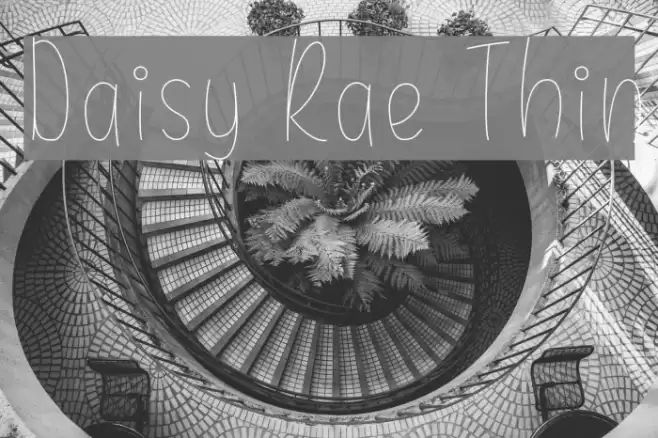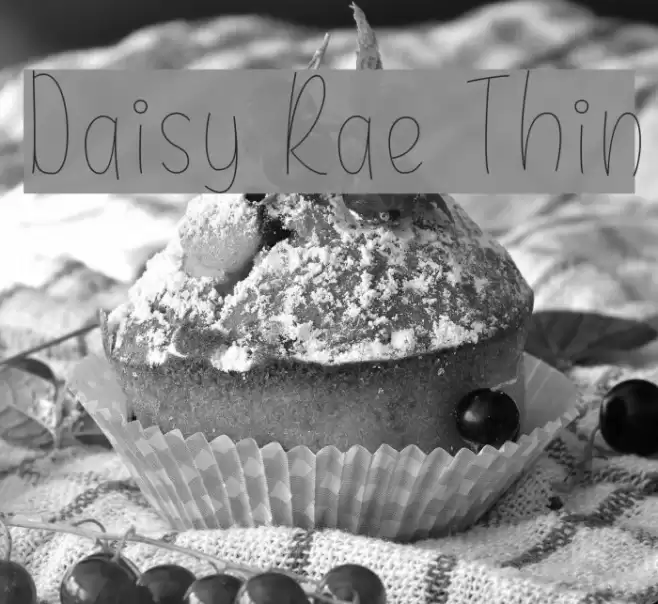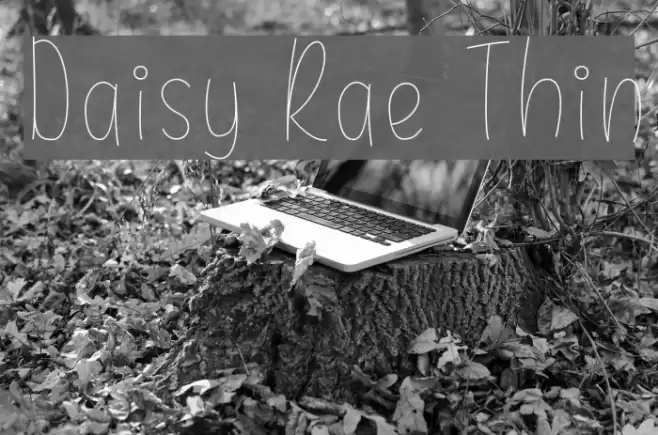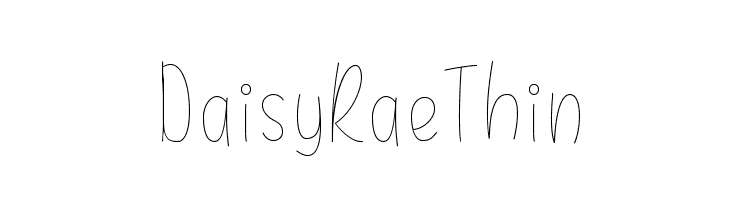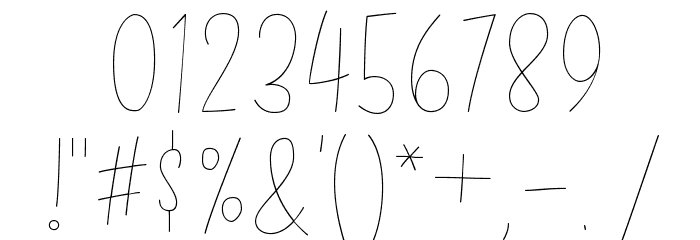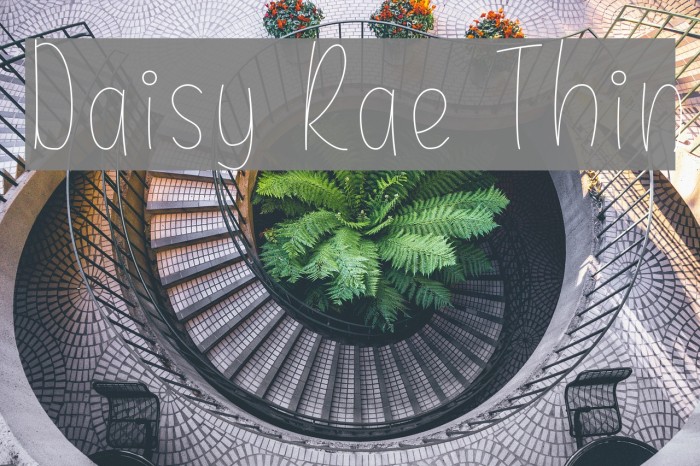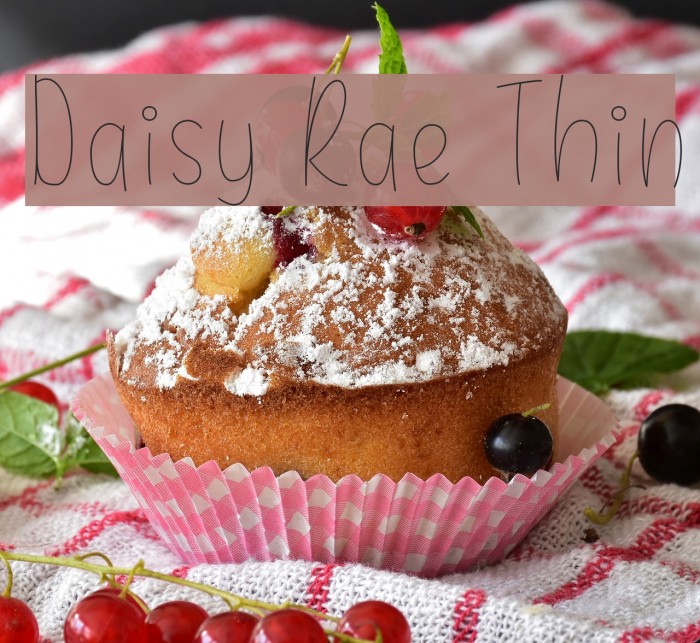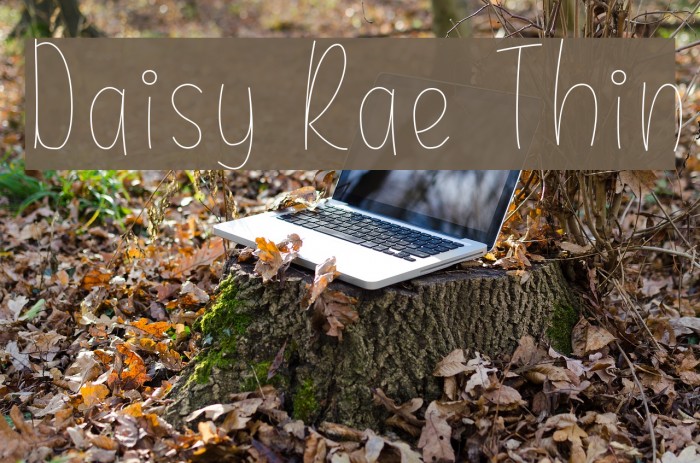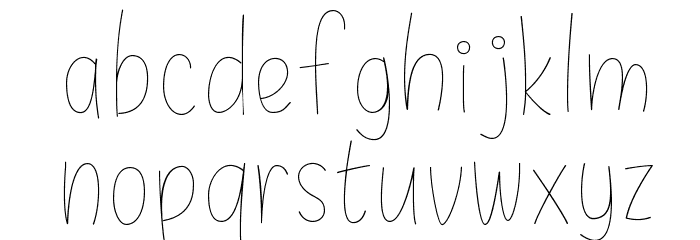
Daisy Rae Thin Font
Daisy Rae Thin Description
This font exhibits a delicate and whimsical style with thin, elongated strokes that give it a light and airy feel. The characters are slightly irregular, adding a playful and informal touch. The uppercase letters are tall and slender, while the lowercase letters maintain a consistent height, contributing to a harmonious appearance. The numerals are clear and legible, matching the overall thin aesthetic. Special characters are included, maintaining the same thin and elegant design. This font is ideal for projects that require a touch of elegance and creativity.
A thin, whimsical font with elongated strokes and a playful, informal style from Uncategorized fonts.
- Proposed Projects: Ideal for invitations, greeting cards, children's books, and creative branding projects.
- Overall Style: Whimsical
- Use Case: Headlines, Logos, Invitations